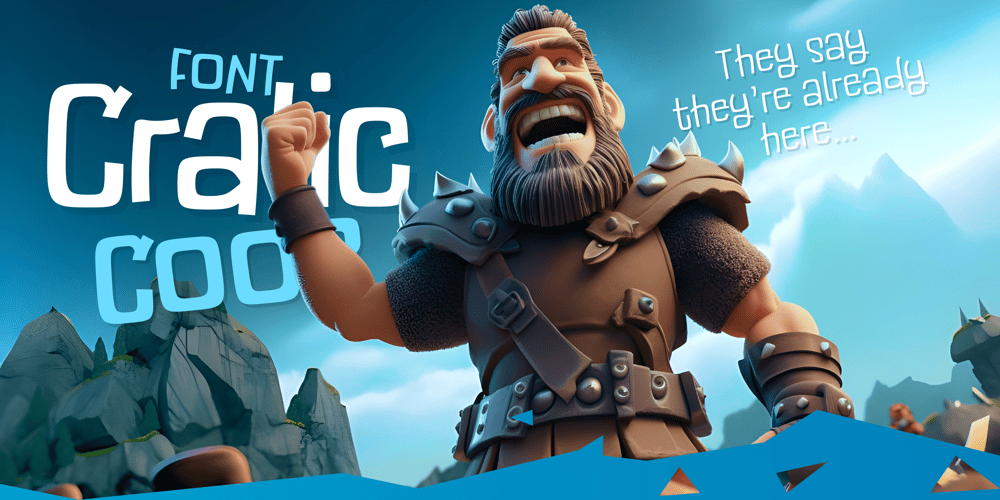
Cralic coob Font Family was designed by Alexey Popov and published by Popskraft. Cralic coob contains 10 styles and family package options. The Cralic Coob font is an excellent selection when you want to infuse your designs with a playful and whimsical charm. This adorable and quirky display font adds a delightful and lighthearted element to any creative endeavor. It offers a wide range of applications, making it a versatile choice for various projects.Whether you’re working on branding projects, crafting unique logos, designing wedding materials, creating eye-catching social media posts, producing captivating advertisements, or even developing product packaging and labels, the Cralic Coob font is your ideal companion. This font’s handwritten style adds a personal and charming touch to photography projects, while it also elevates the elegance of invitations and stationery.With its ability to convey a sense of childlike wonder and cheerfulness, the Cralic Coob font is your go-to choice for infusing character and whimsy into your creative work. Its versatility and distinctive aesthetic make it a valuable asset for designers seeking to add that extra touch of playfulness and individuality to their projects.See other fonts from Cralic family https://www.myfonts.com/collections/cralic-font-popskraft